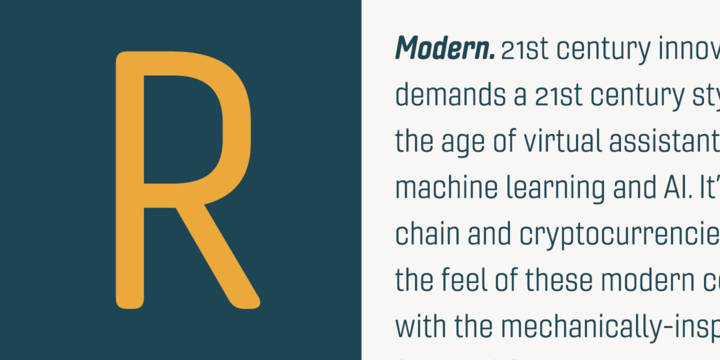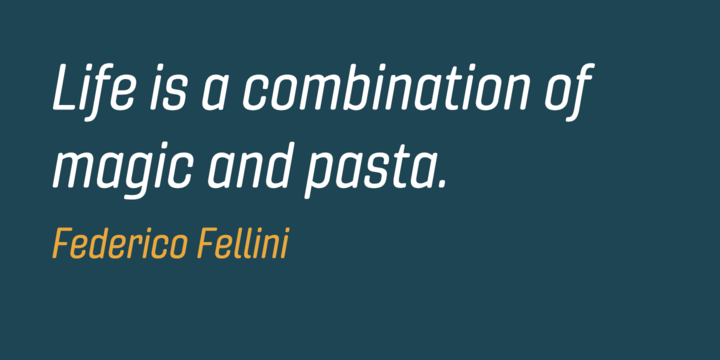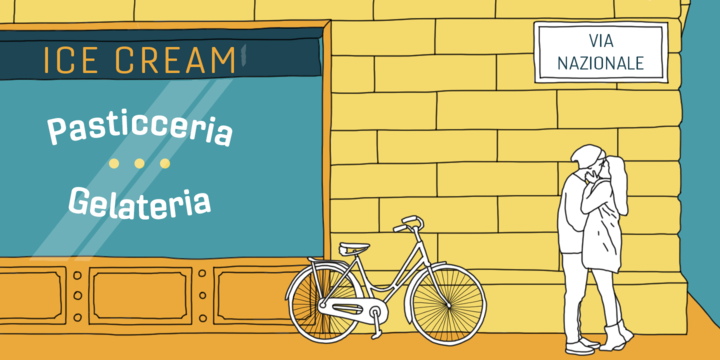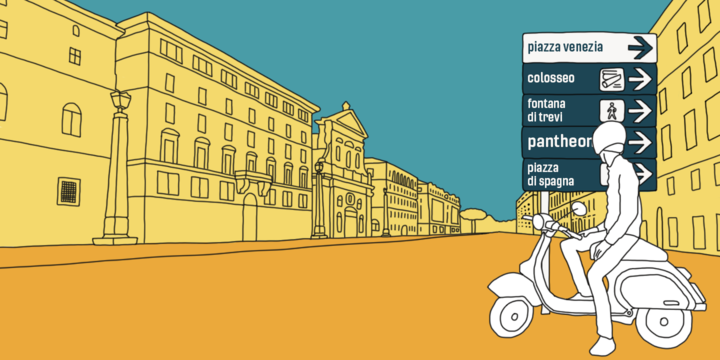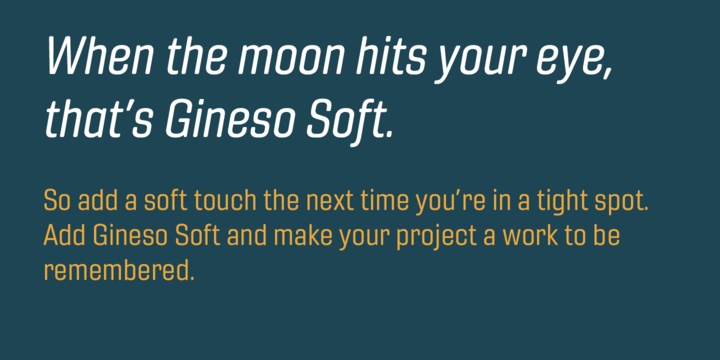
Gineso Soft Font Family
About this font family
Handcrafted signs line the stoned walkways of old Italy. Some a century old, these often forgotten works of unknown artists remain etched across cities and villages. But now, they make their inviting impressions once again as the inspiration for insigne design’s Gineso Soft typeface.
Gineso Soft absorbs the personality of northern Italian posters, headlines and logotypes, providing a type especially nice for signs and titling with its condensed qualities. The font contains matching italics for the the eight weights and three widths. We’ve also included small features along with fractions and superior / inferior characters to broaden your options. Even more, Gineso Soft is ready for all applications and features a large character set for the languages ​​and literature of Europe.